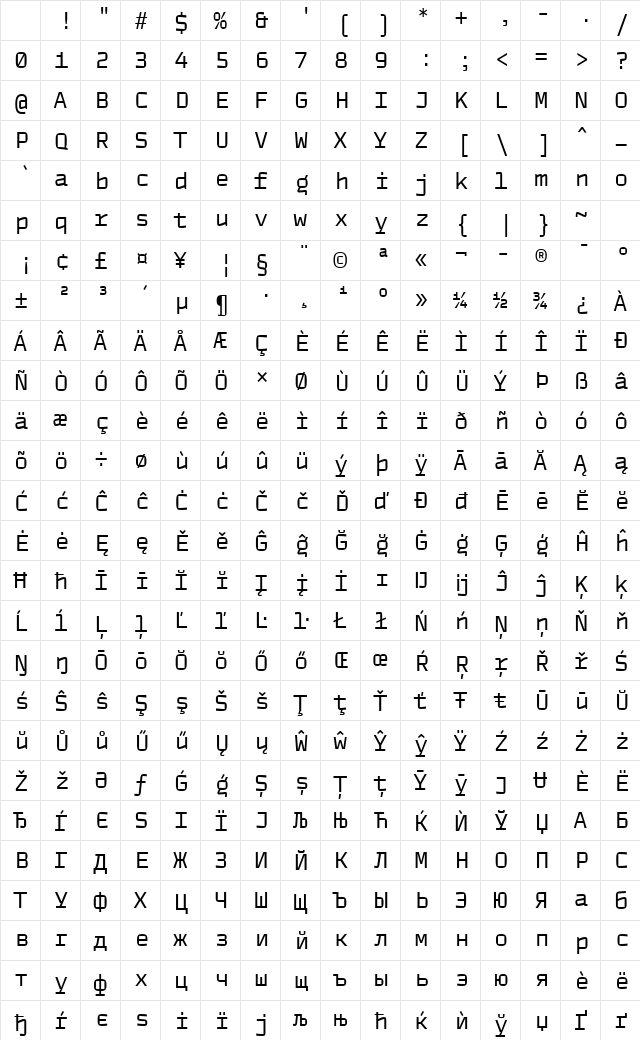
Complete TT Autonomous Mono Trl Regular glyph index. Displaying only characters natively supported by TT Autonomous Mono Trl Regular font.
TT Autonomous Mono Trl uses fixed-width spacing throughout, giving it the structured, systematic character associated with coding environments and technical documentation.